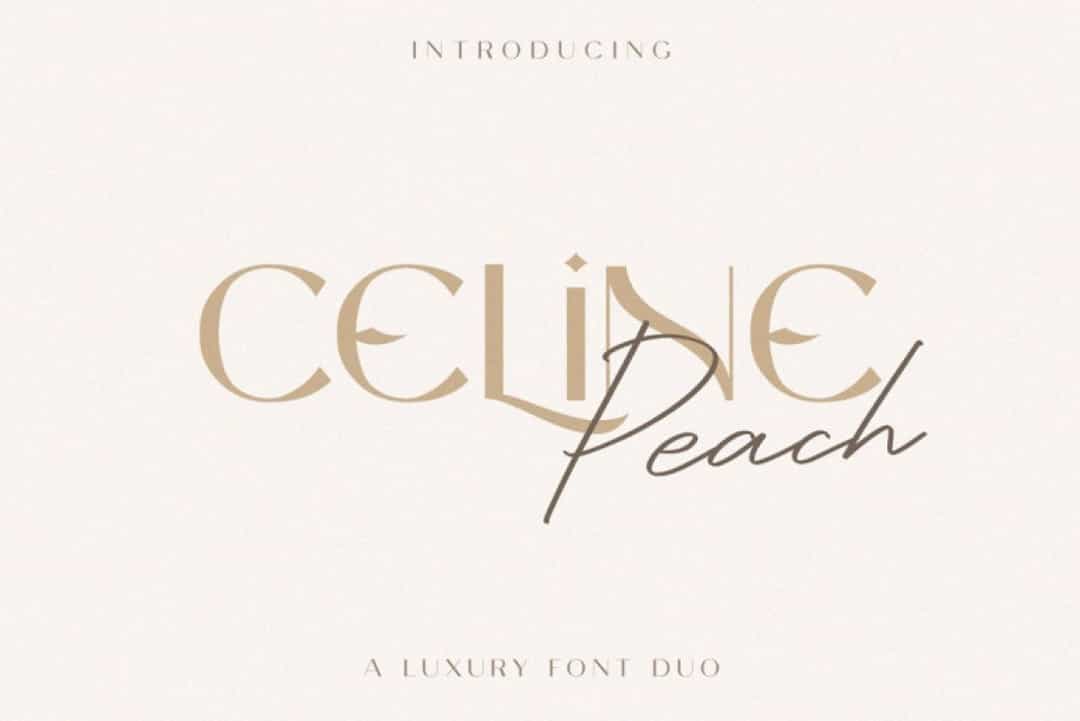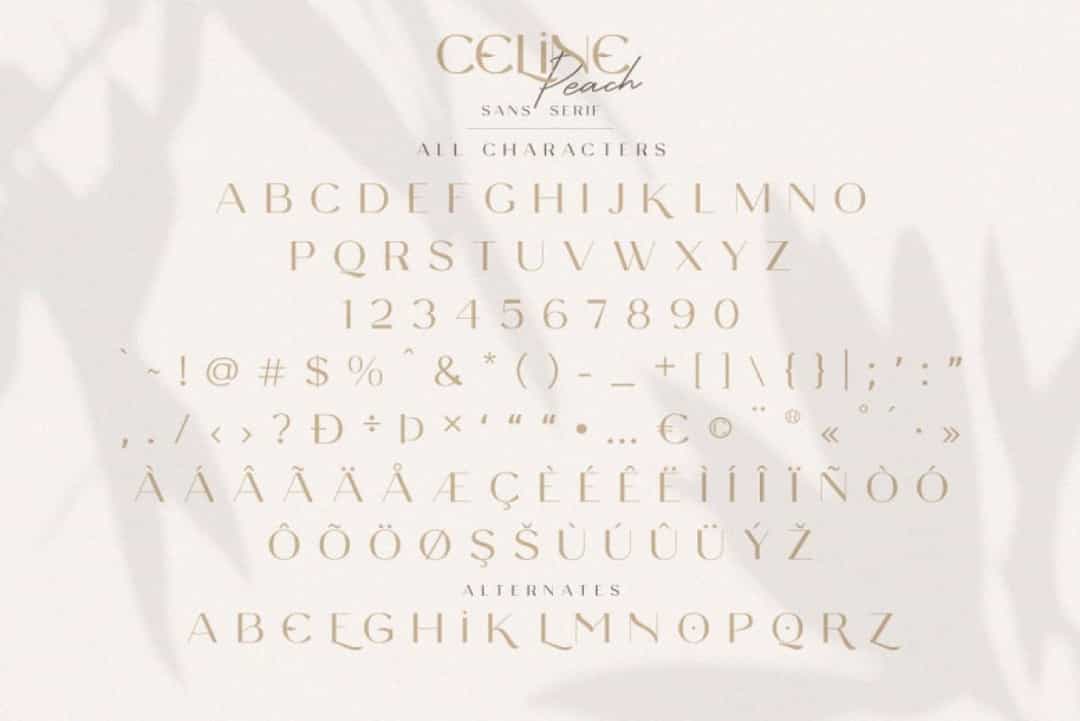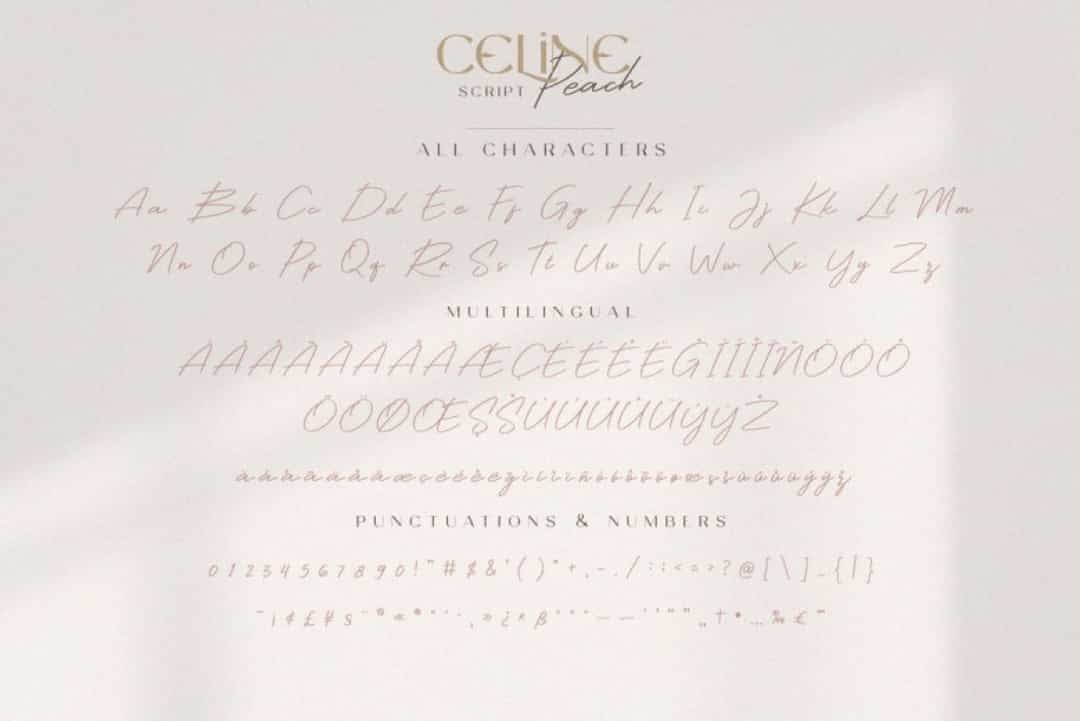
Discover Celine Peach Font, part of the Sans Serif Handwritten collection—a versatile and unique font perfect for adding a personal touch to your projects. Download it for free and enjoy crafting designs with style, from invitations to social media posts. This font is available exclusively for personal use, giving you the freedom to create without limits. Unlock your creativity with Celine Peach Font today!
Celine Peach – A Luxury Font Duo is a combination of a modern sans serif font & gorgeous handwritten script font that are created based on the real handwriting. The font is a luxury duo that will fit well with the fashion, e-commerce brands, trend blogs wedding boutiques or any business which wants to look stylish and elegant.